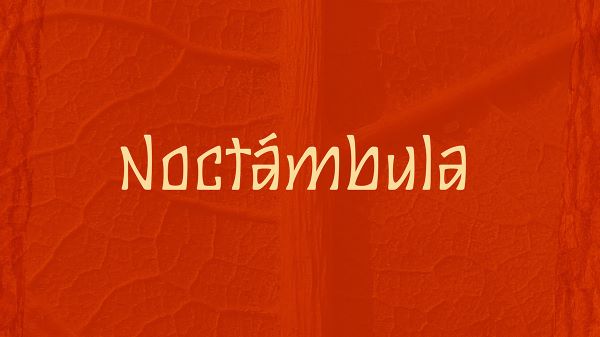
Noctambula Font
Noctambula by Yanina Belén is a display freaky font born from a distinctive conceptual premise: the flowing, dreamlike curves of tree branches rendered through a lens of tension and latent danger. Developed as part of an introductory type design programme at UNLa in Argentina, it achieves something uncommon for a student project.Free for personal use.
Noctámbula is an atmospheric display typeface in our free font collection, designed by Yanina Belén in collaboration with the Introducción al Diseño Tipográfico programme at UNLa — a university type design course in Argentina committed to fostering original, concept-driven typographic work. Browse our full library of free fonts and discover more distinctive typefaces crafted by independent designers around the world.